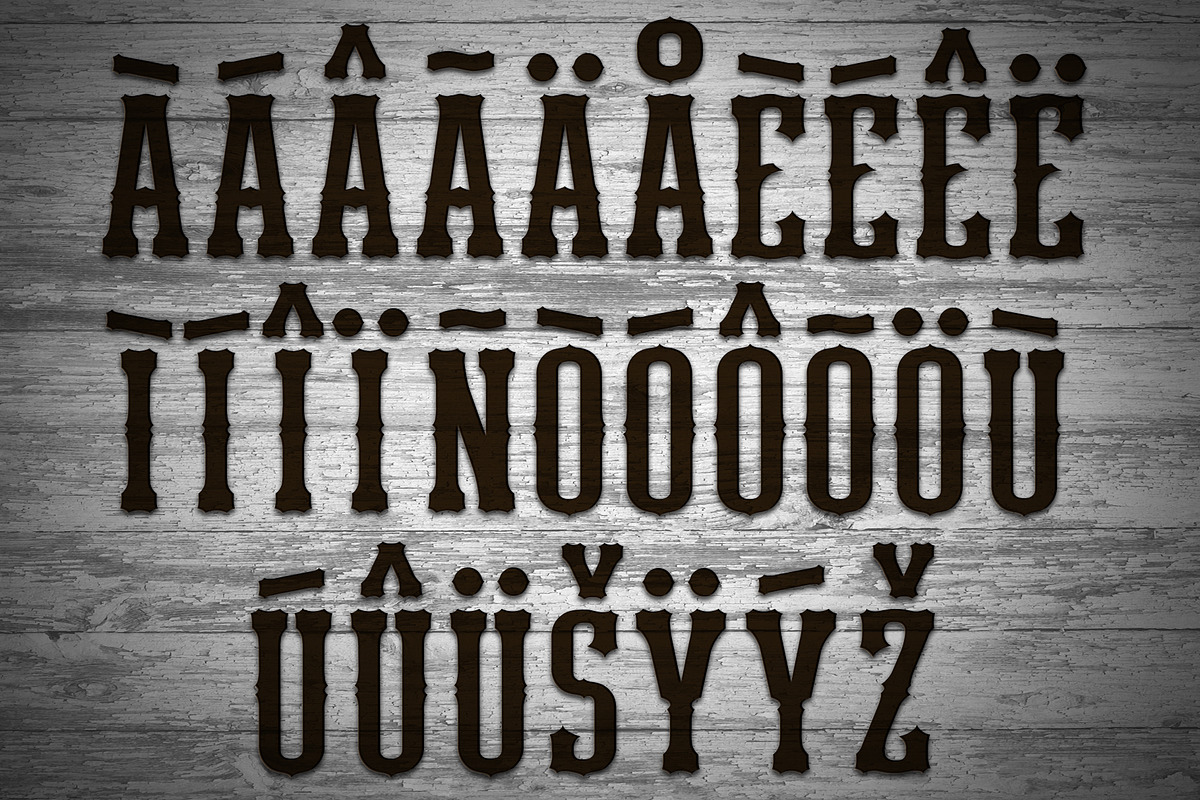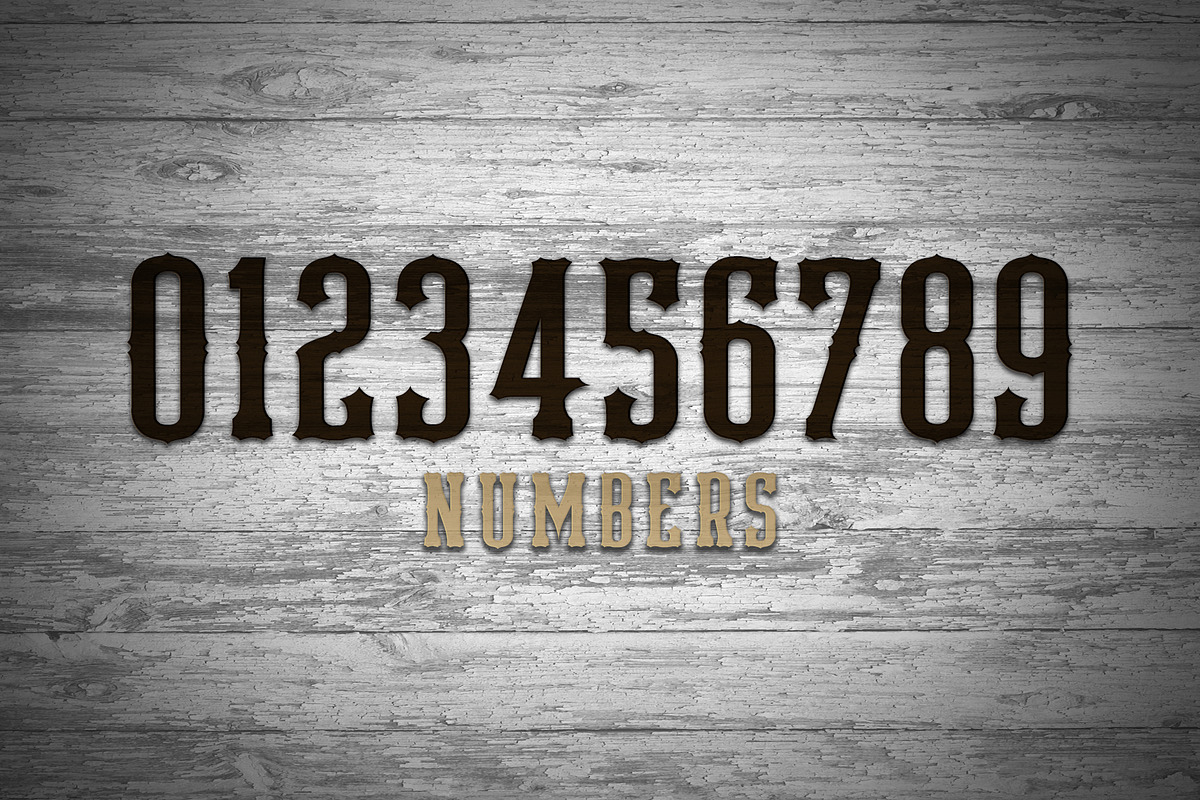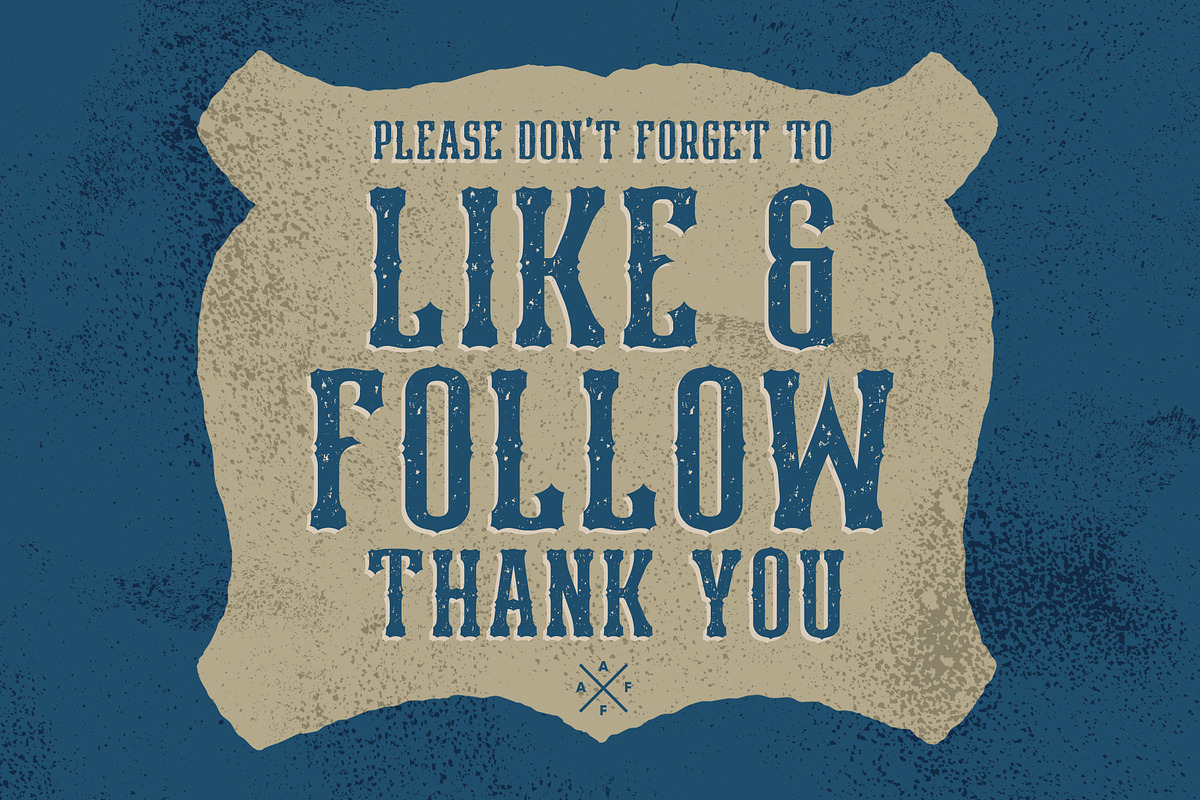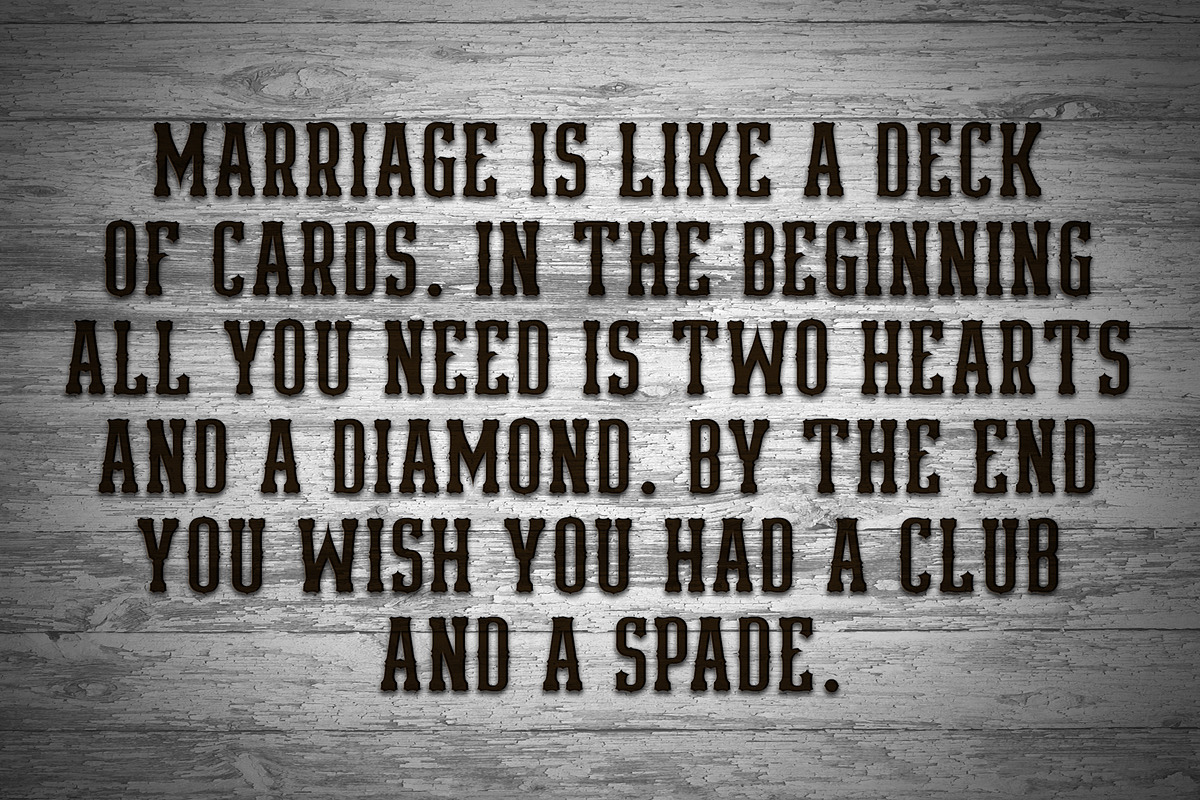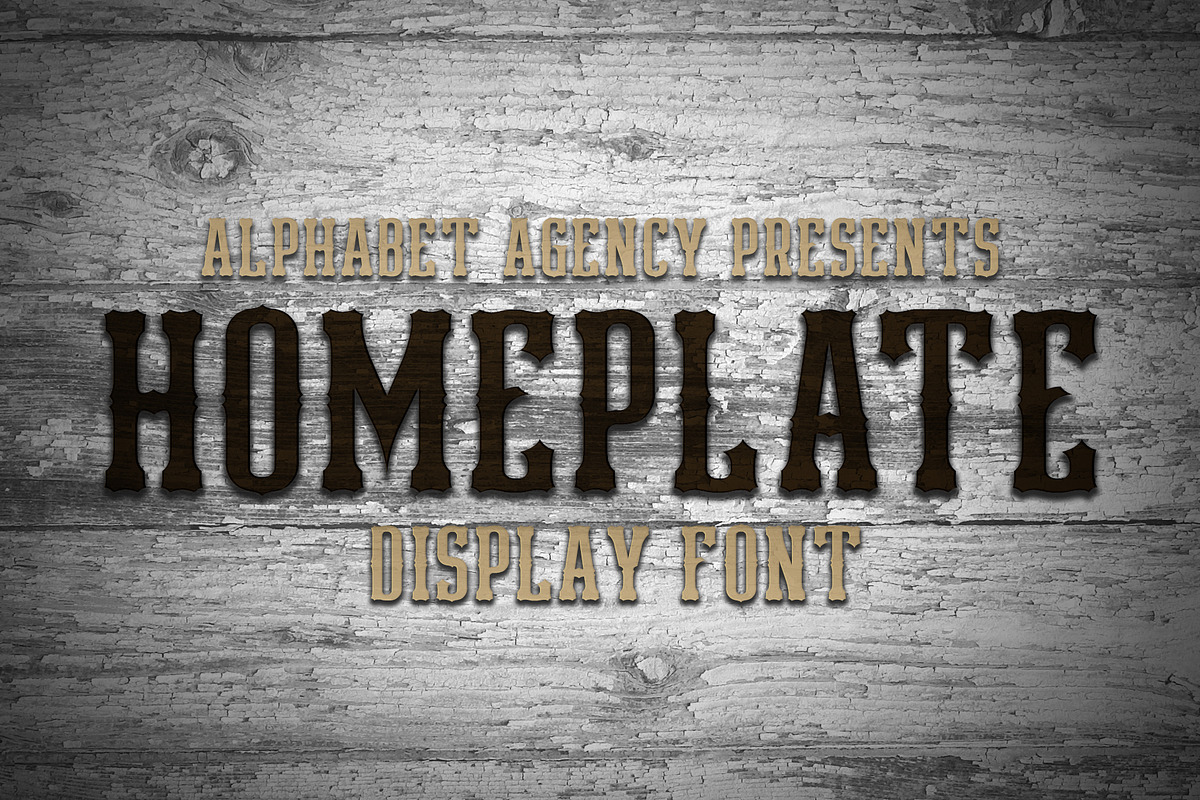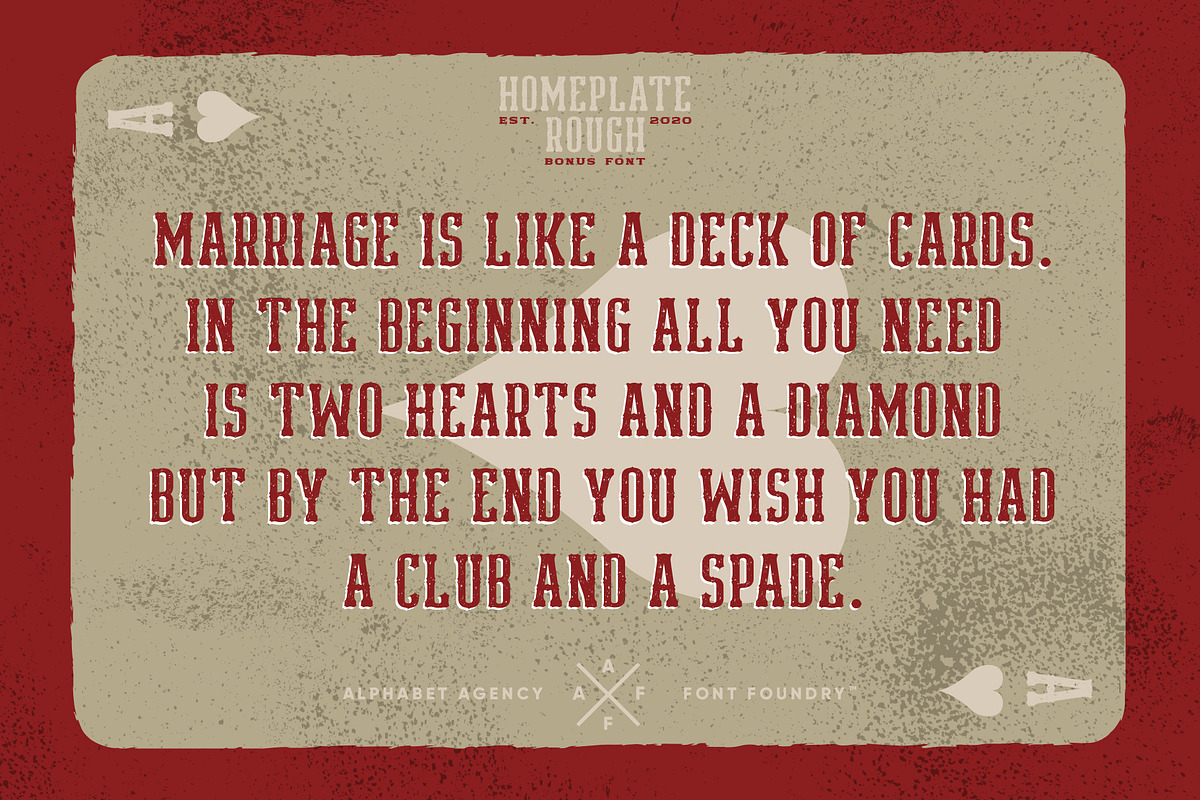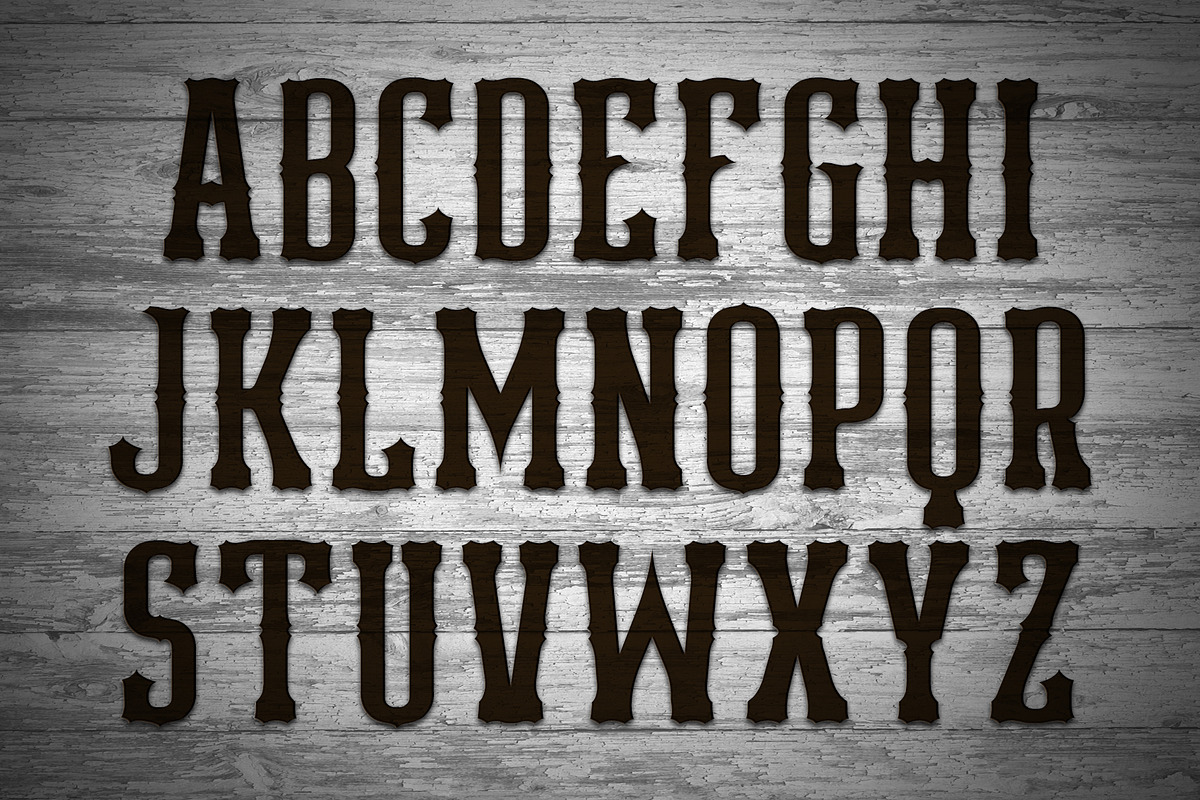
Homeplate Font Duo
Homeplate Font Duo contains Homeplate and Homeplate Rough
Homeplate Font Duo by Alphabet Agency fits naturally into Branding, posters, packaging, typography.